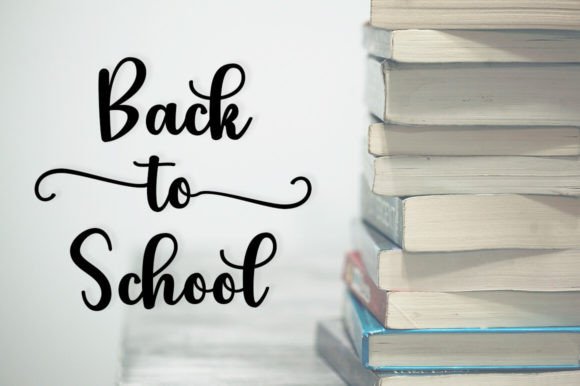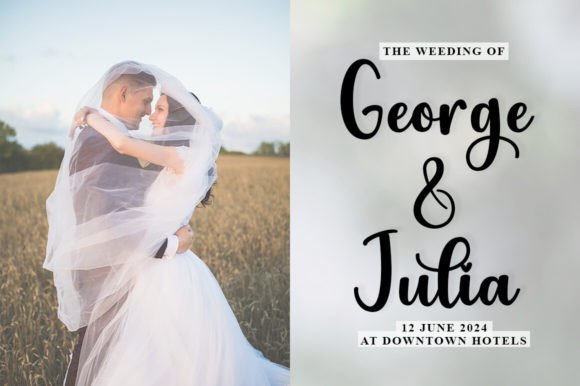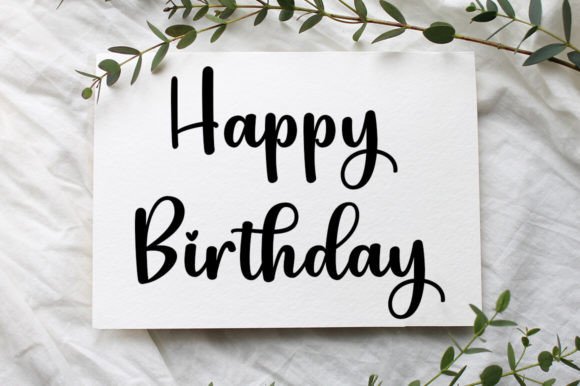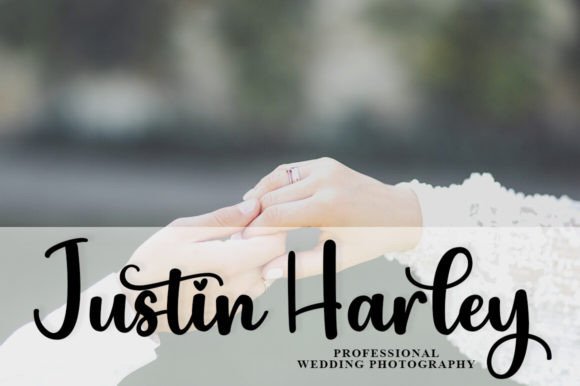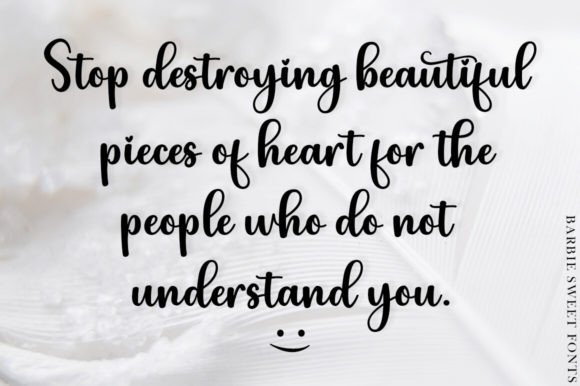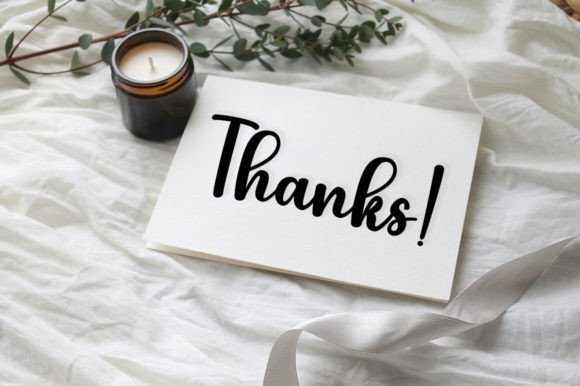
Unlocking the Sweetness of Your Designs
Have you ever stared at a blank canvas, feeling stuck and uninspired? You’re not alone. Sometimes, all it takes is the right font to spark a creative moment that sets your imagination ablaze. For designers, finding that perfect font can be a game-changer. That’s where the Barbie Sweet Font comes in – a charming, handwritten font that’s as sweet as its name suggests.
This lovely font is designed to add a touch of warmth and personality to your designs. Whether you’re creating branding materials, invitations, or social media graphics, the Barbie Sweet Font is the perfect addition to your toolkit. Its natural and unique style makes it a valuable asset for designers looking to add a little extra something to their projects. With its interesting alternatives and ligatures, the possibilities are endless.
Barbie Sweet Font Key Features
- Font Family: Barbie Sweet Font is a unique, hand-drawn font designed to resemble the iconic Barbie doll.
- Unique Characteristics: Features a playful, cursive script with rounded edges and subtle flourishes, evoking a sense of femininity and whimsy.
Barbie Sweet Font Review
Overall, I think the Barbie Sweet Font has some lovely qualities that make it suitable for certain projects. ✨ Here are a few things that work well:
- Playful and feminine vibe: This font perfectly captures the essence of Barbie, making it ideal for branding and marketing materials targeting a young female audience.
- Legibility: The font is clear and easy to read, even at smaller font sizes.
- Creativity: The unique design and customization options make it perfect for designers who want to add a personal touch to their projects.
- Limited versatility: The font’s style and design may not be suitable for all projects, particularly those requiring a more professional or serious tone.
- Customization limitations: While the font offers some customization options, it may not be as extensive as some designers would like.
- Size and scale limitations: At larger font sizes, the font can become somewhat pixelated and may lose its clarity.
Overall, I think the Barbie Sweet Font is a fun and creative option for designers looking to add a playful touch to their projects. While it may not be suitable for every project, it’s definitely worth considering for those that require a feminine and whimsical vibe.
Here are some tips to help you get the most out of the Barbie Sweet Font:
- Use it to create whimsical and playful designs.
- Pair it with bold and bright colors to add visual interest.
The Barbie Sweet Font is ideal for:
- Women’s fashion and beauty branding.
Alternatives to Barbie Sweet Font for Designers
Pacifico Font is a beautiful, elegant script font that is perfect for designing feminine and luxurious brands. It is ideal for use in logos, invitations, and packaging design. Compared to Barbie Sweet Font, Pacifico Font has a more sophisticated and refined look, making it suitable for high-end brands.
Great Vibes Font is a modern, cursive script font that is great for creating a playful and friendly atmosphere. It is perfect for use in social media graphics, advertisements, and website design. Compared to Barbie Sweet Font, Great Vibes Font has a more relaxed and casual feel, making it suitable for younger audiences.
Carolyna Pro Font is a elegant, modern script font that is perfect for designing luxurious and high-end brands. It has a more refined and sophisticated look compared to Barbie Sweet Font, making it suitable for use in logos, packaging design, and advertising.